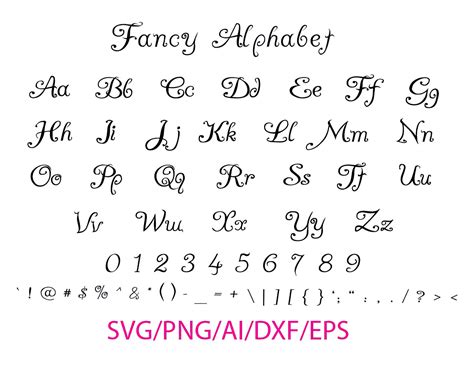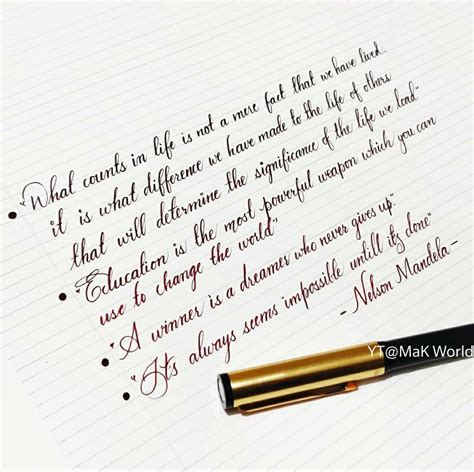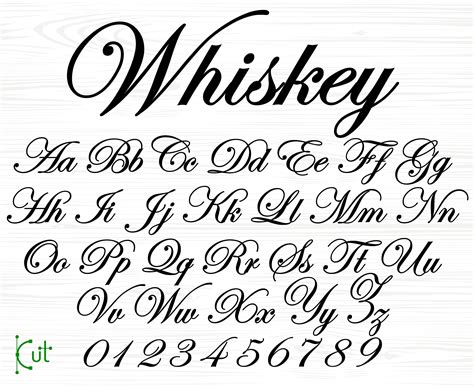
In the digital age, the art of calligraphy and beautiful cursive fonts has seen a resurgence, blending traditional elegance with modern technology. Beautiful cursive fonts are not just about aesthetics; they evoke a sense of timeless beauty and sophistication. Whether you're designing a wedding invitation, creating a logo, or simply adding a touch of elegance to your digital projects, beautiful cursive fonts can make a significant impact. This post will explore the world of beautiful cursive fonts, their applications, and how to integrate them into your designs.
Understanding Beautiful Cursive Fonts
Beautiful cursive fonts are characterized by their flowing, connected letters, reminiscent of handwriting. They add a personal touch to any project, making them ideal for a variety of applications. From formal invitations to branding materials, beautiful cursive fonts can enhance the visual appeal and convey a sense of elegance and refinement.
Cursive fonts come in various styles, each with its unique charm. Some popular types include:
- Script Fonts: These fonts mimic hand-lettering and are often used for invitations and formal documents.
- Brush Script Fonts: These fonts have a more casual, hand-drawn appearance, perfect for creative projects.
- Calligraphy Fonts: These fonts are inspired by traditional calligraphy and are ideal for elegant and formal designs.
Applications of Beautiful Cursive Fonts
Beautiful cursive fonts are versatile and can be used in a wide range of applications. Here are some popular uses:
- Wedding Invitations: Cursive fonts add a touch of elegance and romance to wedding invitations, making them perfect for special occasions.
- Branding and Logos: Many brands use cursive fonts to create a unique and memorable identity. The flowing letters can convey a sense of sophistication and creativity.
- Social Media Graphics: Cursive fonts can make social media posts stand out, adding a personal touch to your content.
- Stationery and Greeting Cards: Beautiful cursive fonts are ideal for personalizing stationery and greeting cards, making them perfect for gifts and special occasions.
- Web Design: Incorporating cursive fonts into web design can enhance the visual appeal and create a unique user experience.
Choosing the Right Beautiful Cursive Font
Selecting the right cursive font depends on the context and the message you want to convey. Here are some factors to consider:
- Legibility: Ensure the font is easy to read, especially if it will be used in large blocks of text.
- Style: Choose a font that matches the overall aesthetic of your project. For example, a formal event might require a more traditional script font, while a casual event could benefit from a brush script font.
- Versatility: Consider how the font will look in different sizes and on different backgrounds. A versatile font can be used in various applications without losing its appeal.
Here is a table to help you choose the right cursive font based on your needs:
| Application | Recommended Font Style | Example Fonts |
| Wedding Invitations | Script Fonts | Allura, Great Vibes, Pacifico |
| Branding and Logos | Calligraphy Fonts | Lobster, Dancing Script, Alex Brush |
| Social Media Graphics | Brush Script Fonts | Sacramento, Rock Salt, Indie Flower |
| Stationery and Greeting Cards | Script Fonts | Allura, Great Vibes, Pacifico |
| Web Design | Versatile Script Fonts | Lobster, Dancing Script, Alex Brush |
📝 Note: Always preview the font in your design to ensure it meets your expectations. Different fonts can look vastly different in various contexts.
Integrating Beautiful Cursive Fonts into Your Designs
Once you've chosen the perfect cursive font, the next step is to integrate it into your design. Here are some tips to help you get started:
- Pairing Fonts: Cursive fonts often work best when paired with a simpler, more readable font. This creates a balance and ensures that your text is easy to read.
- Color Scheme: Choose a color scheme that complements your cursive font. Darker colors can make the font stand out, while lighter colors can create a softer, more elegant look.
- Size and Spacing: Pay attention to the size and spacing of your text. Cursive fonts can be more challenging to read in smaller sizes, so ensure there is enough space between letters and lines.
- Background: The background can significantly impact the readability of your cursive font. Choose a background that contrasts with the font color to ensure it stands out.
📝 Note: Always test your design on different devices and screen sizes to ensure it looks good everywhere.
Popular Beautiful Cursive Fonts
There are countless beautiful cursive fonts available, each with its unique style and charm. Here are some popular options to consider:
- Allura: A elegant script font with a modern touch, perfect for invitations and branding.
- Great Vibes: A classic script font with a romantic feel, ideal for wedding invitations and greeting cards.